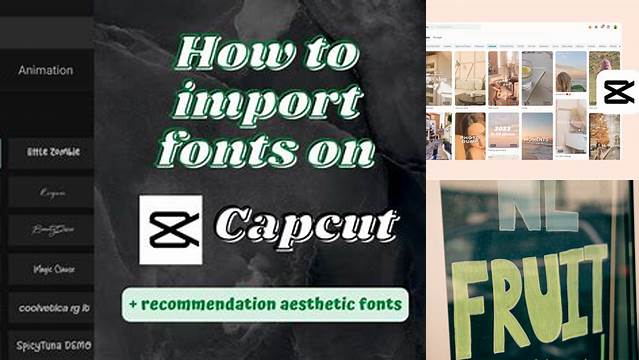
Best CapCut Editing Fonts: A Complete Guide
Hey guys! Ever wondered how to make your CapCut videos pop? Well, a big part of that is choosing the right fonts. In this guide, we’re diving deep into the world of CapCut editing fonts, covering everything from the basics to advanced techniques. We'll explore how different fonts can impact your video's message and style, and how to select the perfect one for your project. Get ready to level up your editing game!
1. Understanding the Basics of CapCut Fonts
Let's start with the fundamentals. CapCut editing fonts are essentially the different typefaces you can use to add text to your videos. Think of them as the voice of your visuals – they convey tone, style, and personality. CapCut offers a variety of built-in fonts, from classic serif and sans-serif styles to more playful and decorative options. Understanding the basics involves knowing how to access these fonts, how to apply them to your text layers, and how to adjust their size, color, and other properties. It’s also crucial to recognize the difference between various font types and when to use them. For example, a bold, sans-serif font might be perfect for a title, while a more elegant serif font could work well for subtitles. Furthermore, the visual impact of your video can be dramatically enhanced or hindered by your font choice. Imagine using a whimsical, childish font for a serious documentary – it just wouldn't fit! Conversely, a sleek, modern font might be ideal for a tech review or a fashion vlog. By understanding these basics, you're setting the stage for creating videos that are not only visually appealing but also communicate your message effectively. Choosing the correct CapCut editing font can make a significant difference in how your content is received, ensuring your message is clear and engaging.
2. Exploring Different Font Styles in CapCut
CapCut boasts a pretty extensive library of fonts, each with its unique vibe. You've got your classic serif fonts, which are those traditional-looking fonts with little “feet” at the end of the letters – think Times New Roman or Garamond. These fonts often give off a formal, professional, or even academic feel. Then there are the sans-serif fonts, which are cleaner and more modern, like Arial or Helvetica. Sans-serif fonts tend to be more readable on screens, making them a solid choice for captions and subtitles. But it doesn't stop there! CapCut also offers a bunch of script fonts, which mimic handwriting and can add a touch of elegance or personality to your videos. Imagine using a script font for a wedding video or a heartfelt message – it just adds that extra touch of warmth. And let's not forget the display fonts, which are those funky, attention-grabbing fonts that are perfect for titles or to make a statement. Think about the impact of using a bold, display font for a title sequence in a high-energy vlog. Each font style brings something different to the table, and exploring these options is key to finding the perfect match for your project. It's all about understanding the mood and message you want to convey and then selecting a CapCut editing font that aligns with that vision. So, go ahead, dive in and experiment with different styles – you might just discover your new favorite!
4. Best Fonts for Titles in CapCut
Titles are your video's first impression, so picking the right font is crucial! When it comes to title fonts in CapCut, you want something that grabs attention and is easy to read. Think bold, clear fonts that stand out against your background. Sans-serif fonts like Montserrat, Bebas Neue, and Futura are solid choices for titles because they’re clean, modern, and highly legible. These fonts command attention without being too distracting. Imagine a travel vlog with a title in Bebas Neue – it’s sleek, stylish, and instantly draws the viewer in. On the other hand, if you’re aiming for a more dramatic or artistic vibe, you might consider a display font. These fonts are designed to make a statement, but it’s important to use them sparingly. A bold, unique display font can work wonders for a short title, but it might become overwhelming if used extensively. For a touch of elegance, a serif font like Playfair Display or a semi-bold serif can work well, especially for videos with a sophisticated or classic theme. The key is to strike a balance between visual appeal and readability. Your title should not only look good but also clearly communicate the topic of your video. By choosing the best fonts for titles in CapCut, you're ensuring that your video starts off strong and captures your audience's attention right from the get-go.
5. Top Fonts for Subtitles and Captions in CapCut
Subtitles and captions are all about readability, guys! You want your audience to be able to follow along without straining their eyes. That means opting for fonts that are clear, simple, and easy to read at a glance. Sans-serif fonts are your best bet here. Think along the lines of Arial, Helvetica, or Open Sans. These fonts are designed for optimal readability, especially on screens. They have a clean, straightforward look that doesn’t distract from the video content. Imagine watching a fast-paced vlog with subtitles in a fancy, swirling font – it would be a nightmare to follow! The goal with subtitles is to provide information without drawing too much attention to the text itself. Another crucial factor is size and contrast. Make sure your subtitles are large enough to read comfortably, but not so large that they block the visuals. And always ensure there’s enough contrast between the text and the background. White or light-colored text on a dark background usually works well, or vice versa. You can also add a subtle background or shadow to your text to make it stand out even more. By focusing on clarity and readability, you’re ensuring that your subtitles and captions are doing their job effectively – helping your audience engage with your content. So, when it comes to the top fonts for subtitles and captions in CapCut, prioritize simplicity and legibility above all else.
7. How Font Size Impacts Video Viewership
Font size might seem like a small detail, but trust me, it can have a huge impact on how your videos are received! Think about it – if your text is too tiny, viewers will struggle to read it, and they might just tune out altogether. On the flip side, if your text is too large, it can be overwhelming and distract from the visuals. So, finding that sweet spot is key. When choosing font size, consider the platform your video will be viewed on. What looks great on a large computer screen might be illegible on a smartphone. Generally, larger font sizes are better for mobile viewing, as people are watching on smaller screens. Also, think about the length of time your text will be displayed. If you're showing a title for just a few seconds, you'll want it to be big and bold so viewers can quickly grasp the message. For subtitles or captions, which need to be readable for longer periods, a slightly smaller size might be more comfortable. Contrast is another important factor. If your text blends into the background, even a large font size won't help. Make sure there's enough contrast between the text and the background so it stands out. Experimenting with different font sizes is crucial. Try viewing your video on different devices to see how the text looks. Get feedback from friends or colleagues. By paying attention to how font size impacts video viewership, you can ensure that your message is clear, engaging, and accessible to everyone.
8. Font Color and Background Considerations
Font color and background – these two go hand in hand! You can have the coolest font in the world, but if it clashes with the background or is hard to see, it's not doing its job. The key here is contrast. You want your text to pop, so make sure there's a clear difference in color between your font and the background. A classic combo is white text on a dark background, or black text on a light background. These are tried and true for a reason – they’re easy to read and visually appealing. But don't be afraid to experiment with colors! Just keep contrast in mind. If you're using a brightly colored background, a darker font color will usually work best. Conversely, if your background is dark, a lighter font color will make your text stand out. Think about the mood you're trying to create, too. Bright, vibrant colors can be great for energetic videos, while more muted tones might be better for a serious or professional project. You can also use color to highlight certain words or phrases. For example, if you're creating a tutorial, you might use a different color to emphasize key steps or instructions. Just be careful not to overdo it – too many colors can be distracting. In CapCut, you can also add a background or shadow to your text to make it even more visible. A subtle shadow can work wonders for separating your text from a busy background. By carefully considering font color and background, you can create text that not only looks good but also enhances the overall viewing experience.
9. Kerning and Leading in CapCut Fonts
Okay, let’s get a little technical, but don’t worry, it’s not as intimidating as it sounds! Kerning and leading are typographic terms that refer to the spacing between letters and lines of text, respectively. And they play a big role in how readable and visually appealing your text is. Kerning is all about the space between individual letters. Sometimes, the default spacing between letters can look a little off, especially with certain font combinations. Adjusting the kerning allows you to fine-tune the spacing, making the text look more balanced and harmonious. In CapCut, you might not have precise kerning controls like you would in professional design software, but you can often adjust the overall character spacing, which can help improve the look of your text. Leading, on the other hand, refers to the space between lines of text. Too little leading can make your text look cramped and difficult to read. Too much leading can make it feel disjointed. The ideal leading will vary depending on the font, the font size, and the overall design of your video. Generally, a little extra space between lines can improve readability, especially for longer blocks of text like captions or subtitles. While CapCut's text editing tools might not offer advanced kerning and leading adjustments, being aware of these concepts can help you make better choices when selecting fonts and formatting your text. You can experiment with different font sizes and line spacing options to achieve a more polished and professional look. Understanding kerning and leading in CapCut fonts is like having a secret weapon in your video editing arsenal, allowing you to elevate your text from simply functional to truly beautiful.
14. Creating Font Templates in CapCut
Font templates are a lifesaver when you're working on a series of videos or want to maintain a consistent style. Think of them as pre-designed text styles that you can quickly apply to your projects. Instead of manually adjusting the font, size, color, and effects every time you add text, you can simply select your template and boom – instant consistency! Creating font templates in CapCut is actually pretty easy, though CapCut doesn't have a dedicated